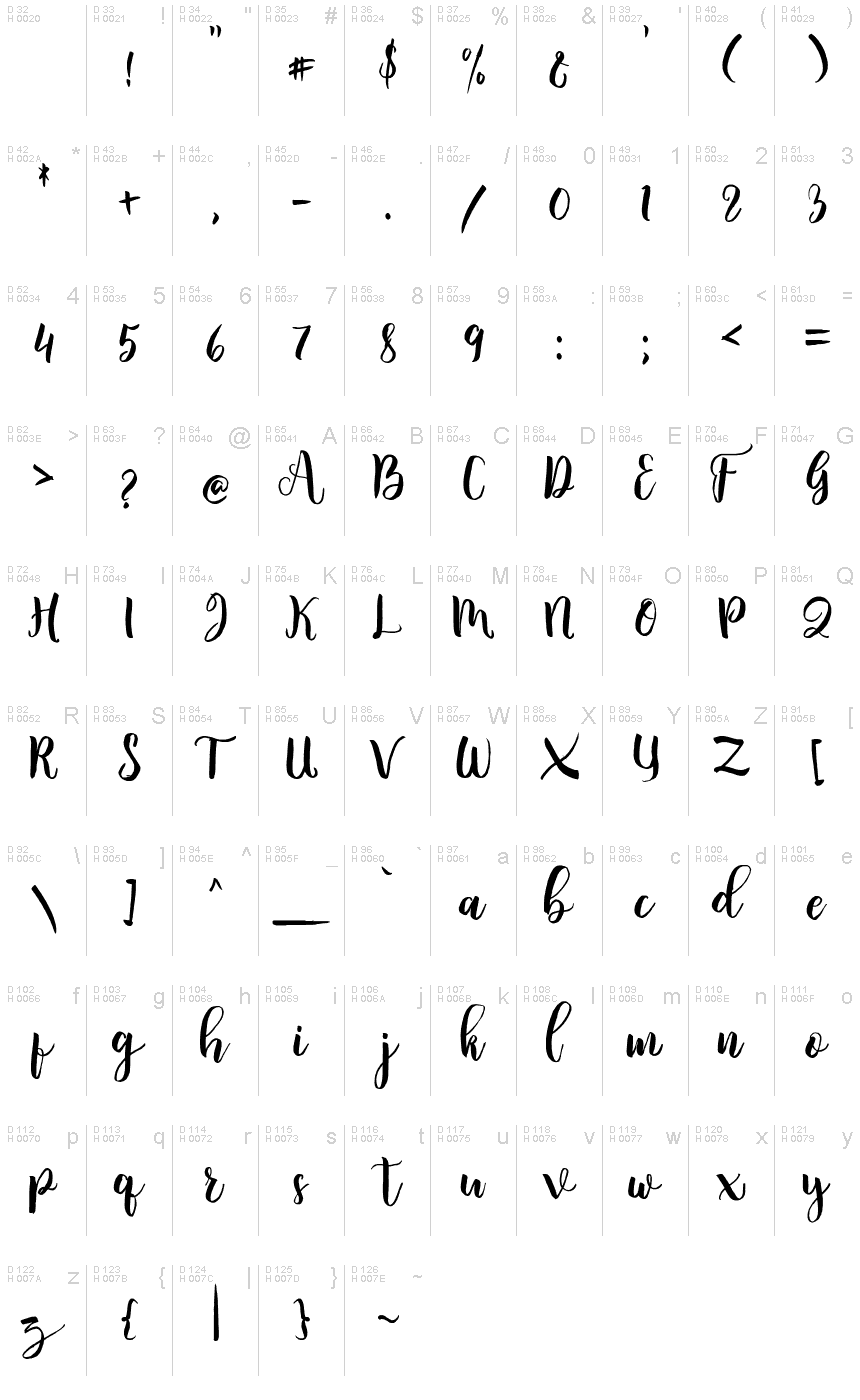
Sharley
Sharley, the latest addition to Infontree Store's collection, is a stunning semi-light calligraphy font that will make your projects stand out. With its elegant curves and flowing strokes, Sharley is perfect for wedding invitations, greeting cards, logos, and other creative projects. Its timeless beauty also makes it suitable for branding and advertising designs that require a touch of sophistication. Whether you're creating a romantic message or an eye-catching headline, Sharley's graceful style will captivate your audience and leave a lasting impression. Download it today and add a touch of elegance to your designs.